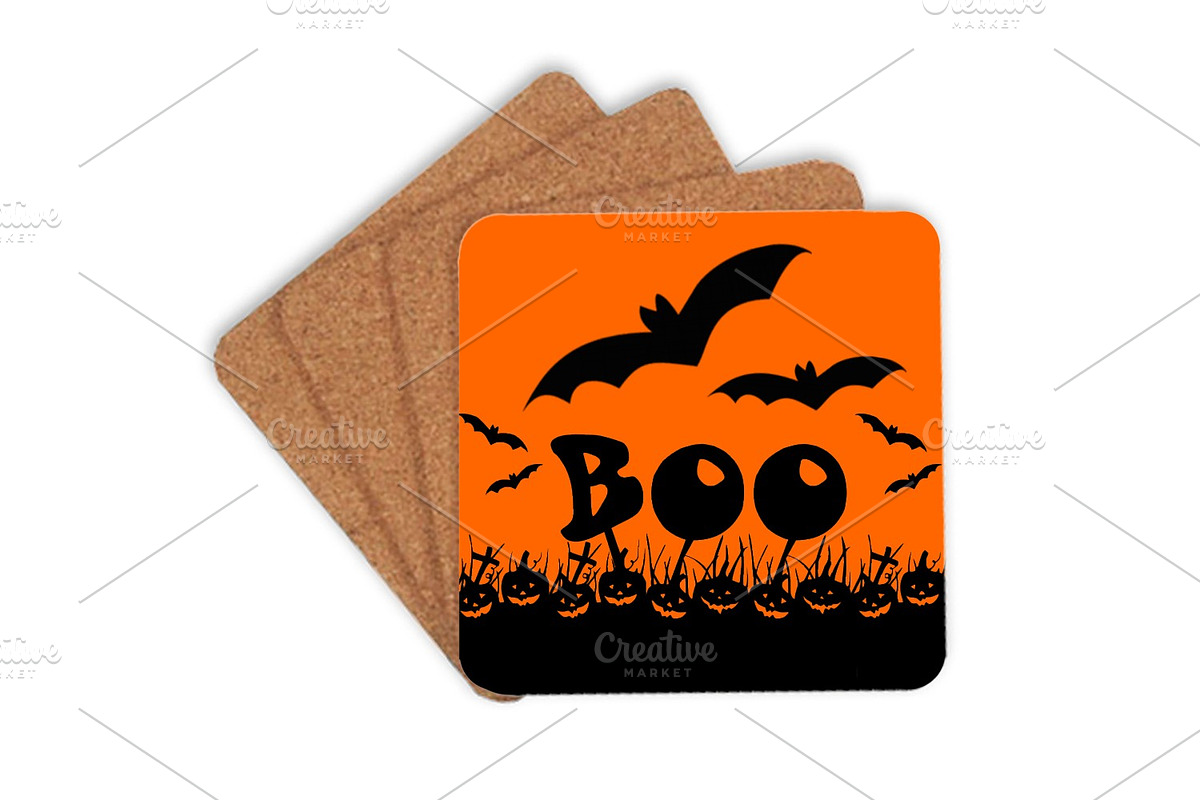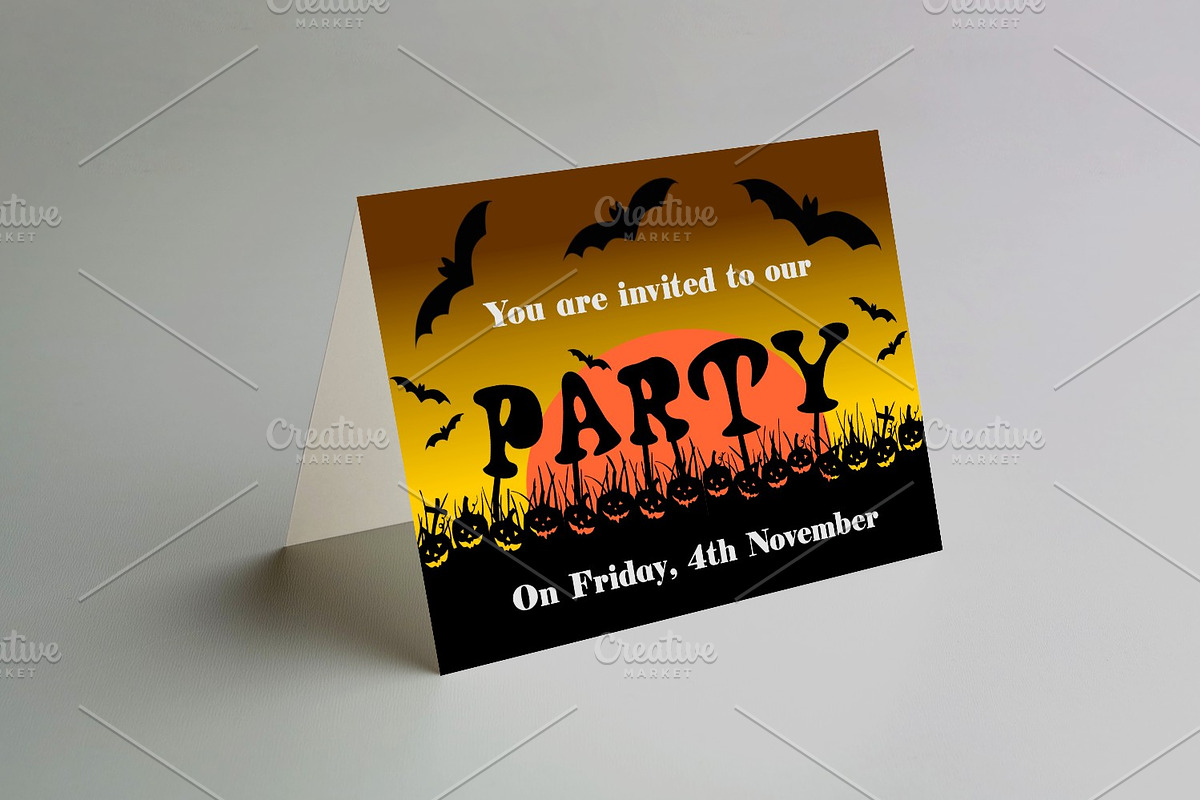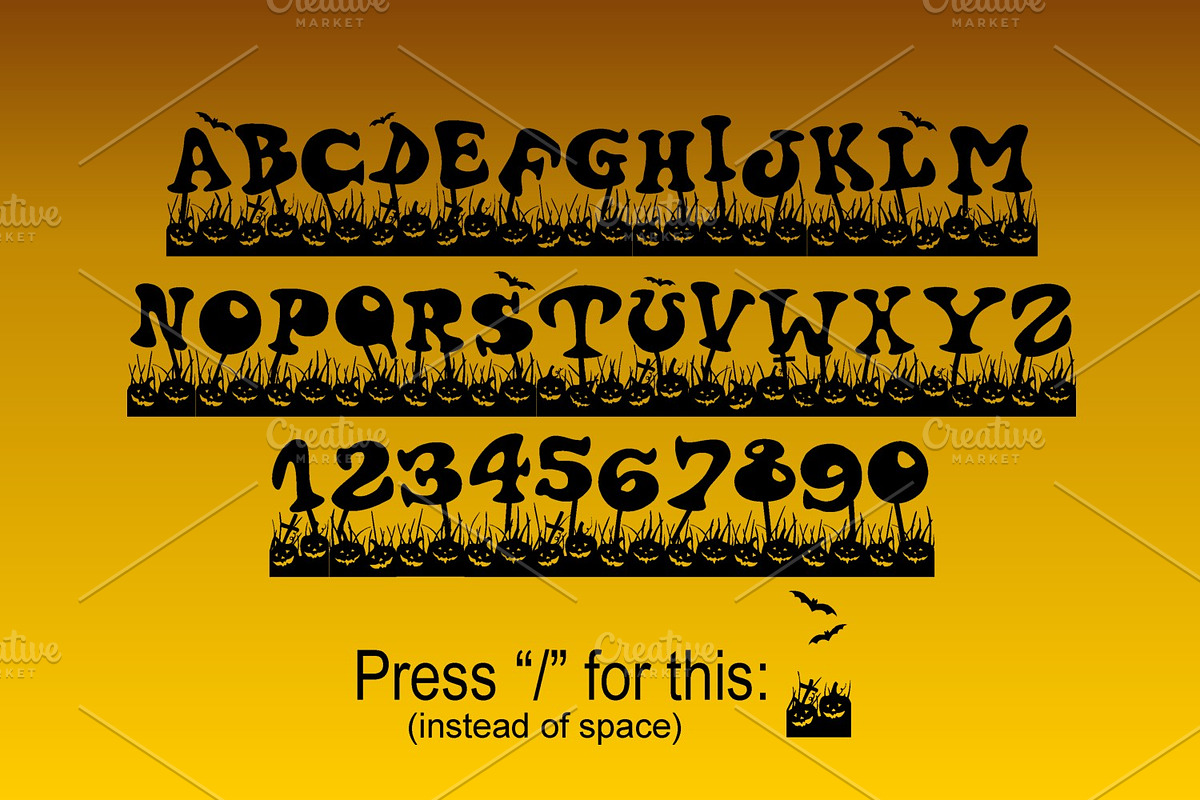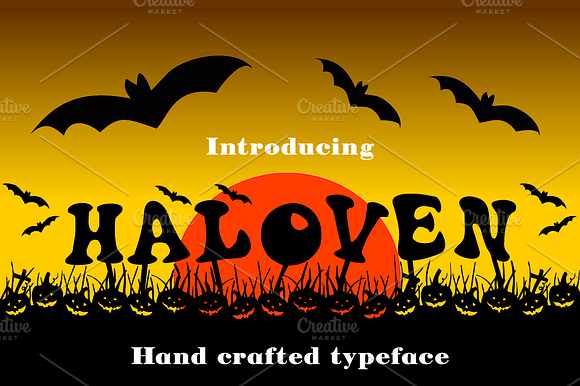
Haloven font
Introducing Haloven hand drawn typeface.
Only capital letters, numbers and "/", so you can use the design background instead of blank space.
Haloven is perfect for cards, product tags, packaging, stickers, stationeries - or simply as a text overlay to any background image.
Haloven font by Digital Typeface Studio fits naturally into Branding, posters, packaging, typography.